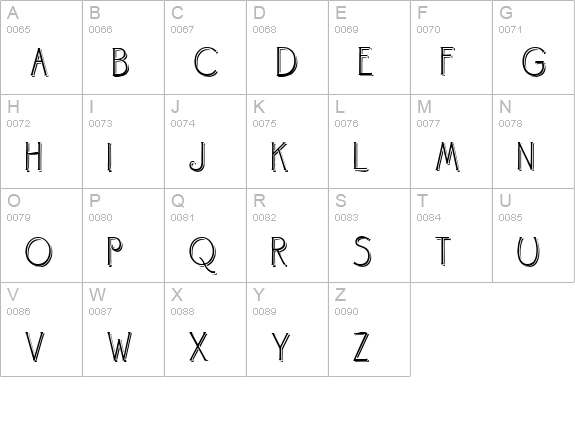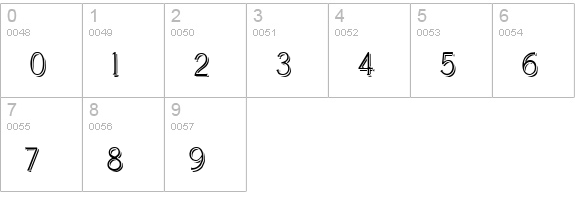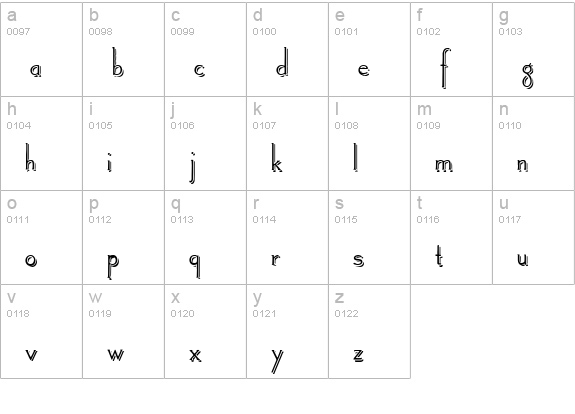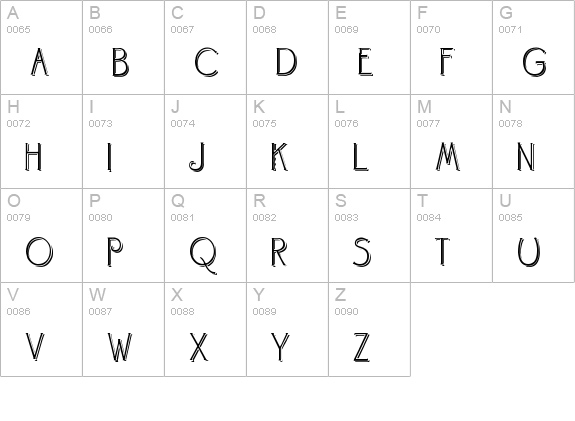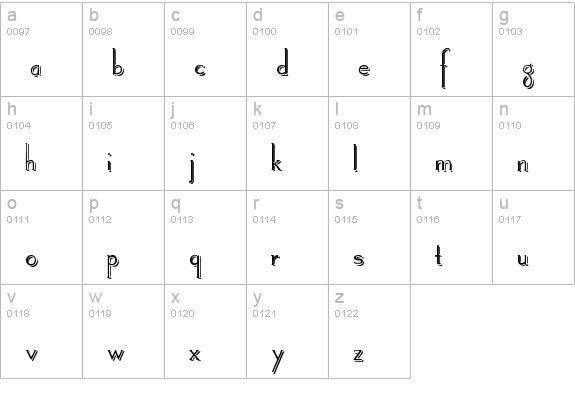
Landsdowne Shadowed Font Details
Landsdowne Shadowed font is a stunning display typeface that exudes elegance and sophistication. Its intricate shadowed design adds depth and dimension to any text, making it perfect for headlines, logos, and other creative projects. With its classic yet modern aesthetic, Landsdowne Shadowed font is sure to make a bold statement. And the best part? Landsdowne Shadowed font is available for free download at FontsMarket.com. So whether you're a designer looking to add a touch of luxury to your work or a business owner wanting to elevate your branding, this font is the perfect choice. Don't miss out on this opportunity to enhance your projects with the beauty of Landsdowne Shadowed font.